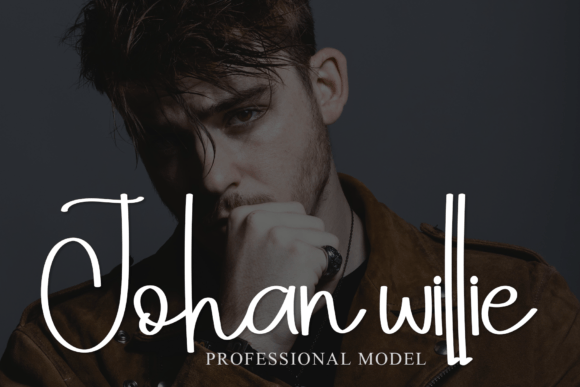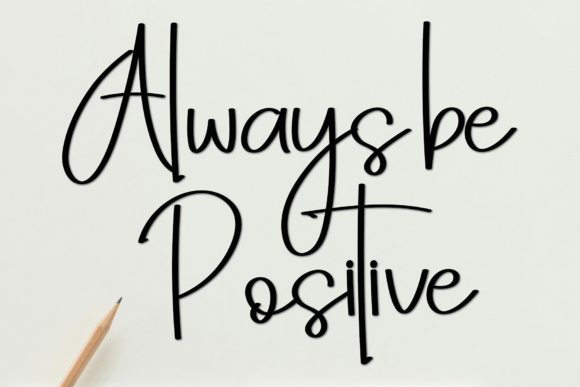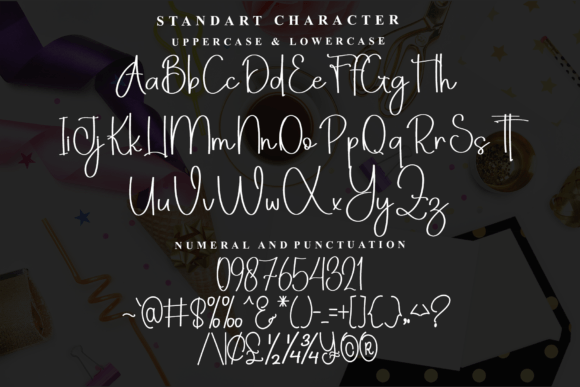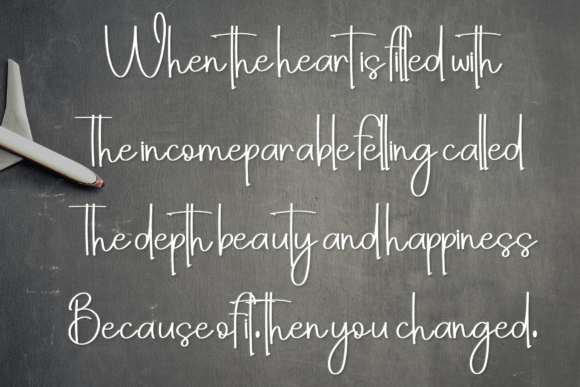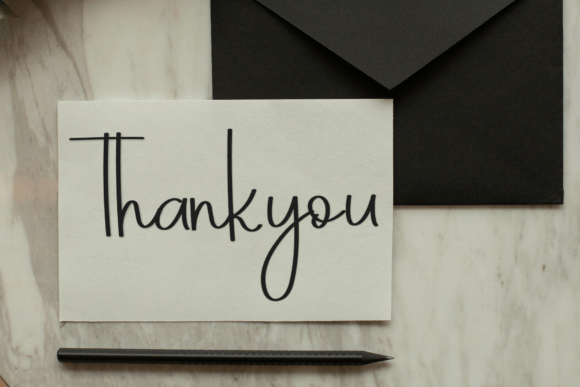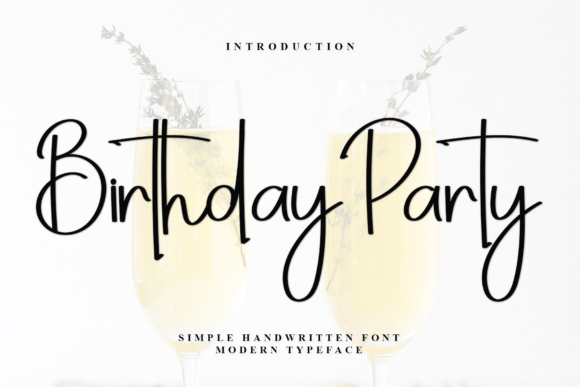
The Ultimate Guide to Birthday Party Font: Elevate Your Designs with this Timeless Handwritten Font
I’ll never forget the time I was working on a birthday party invitation project for a client, and I just couldn’t seem to find the perfect font. The design was supposed to be fun, playful, and celebratory, but every font I tried seemed either too boring or too over-the-top. That’s when I stumbled upon the Birthday Party font 🍰🎉. It was like a breath of fresh air – a lovely, timeless handwritten font that instantly captured the essence of a birthday party. In this article, I’ll share my experience with the Birthday Party font, its features, and how to make the most of it in your designs.
What Makes Birthday Party Font So Special?
The Birthday Party font is a beautiful, handwritten font that’s perfect for creating eye-catching logos, branding, and quotes. What sets it apart is its unique and beautiful touch – every letter has a distinctive character that will make your design come alive! ✨
Here are some of the key features that make Birthday Party font a great choice for designers:
• Unique and beautiful letterforms: Each letter has a distinctive character that will add a personal touch to your designs.
• PUA coded: The font is PUA coded, which means you can easily access all the amazing glyphs and ligatures.
• 🎉 Perfect for branding and logos: The font’s playful and celebratory feel makes it ideal for creating memorable logos and branding.
What I Love About Birthday Party Font
I’ve been using the Birthday Party font for several projects now, and here are some things that I absolutely love about it:
• ✨ The font’s unique letterforms are perfect for creating custom designs that stand out.
• ✅ The PUA coding makes it easy to access the glyphs and ligatures, which is a huge time-saver.
• 🎉 The font’s playful feel is perfect for creating designs that need to be fun and celebratory.
While the Birthday Party font is amazing, there are a few quirks to be aware of:
• 🤔 Limited use in formal designs: The font’s playful feel may not be suitable for formal designs or projects that require a more professional tone.
• ⚠️ Glyphs and ligatures require OpenType features: To access the glyphs and ligatures, you’ll need to use OpenType features in your design software.
The Designer Inspiration Behind Birthday Party Font
The Birthday Party font was inspired by the joy and celebration of birthdays. The designer wanted to create a font that would capture the playful and festive spirit of birthday parties, while also being elegant and sophisticated. The result is a font that’s perfect for creating custom designs that are both fun and memorable.
Q: What is the Birthday Party font?
The Birthday Party font is a lovely, timeless handwritten font that’s perfect for creating eye-catching logos, branding, and quotes.